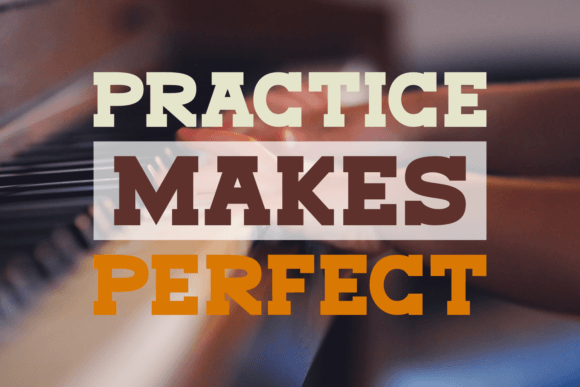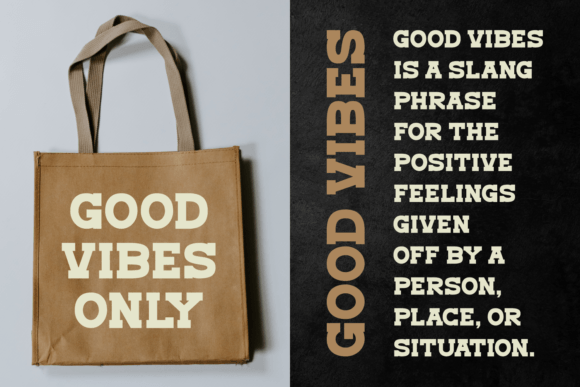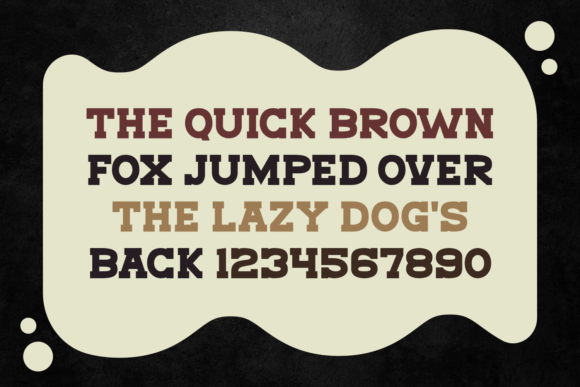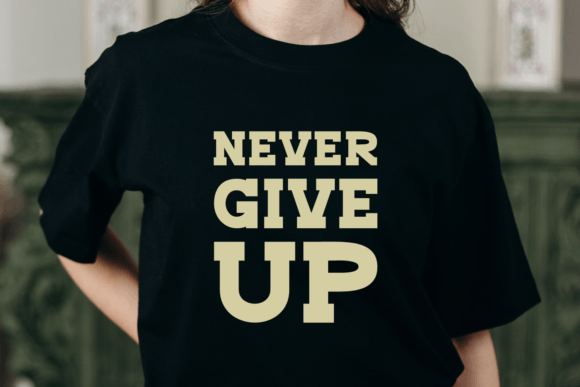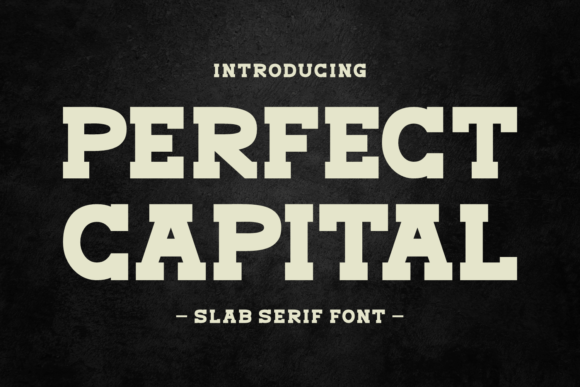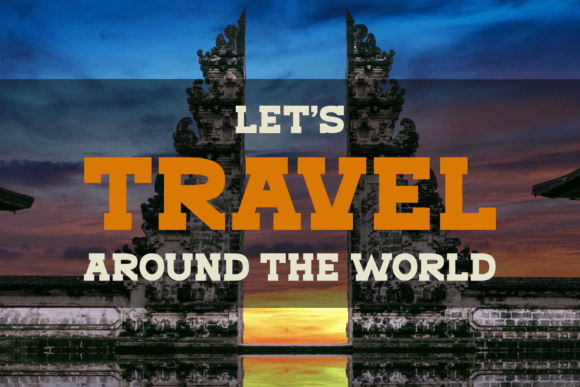
About Perfect Capital Font
Perfect Capital is a cool and modern slab-serif font that commands attention with its bold and structured letterforms. Its clean lines and contemporary aesthetic convey a sense of strength and sophistication. Ideal for projects requiring a bold and impactful typeface, Perfect Capital adds a modern and confident touch to your designs.